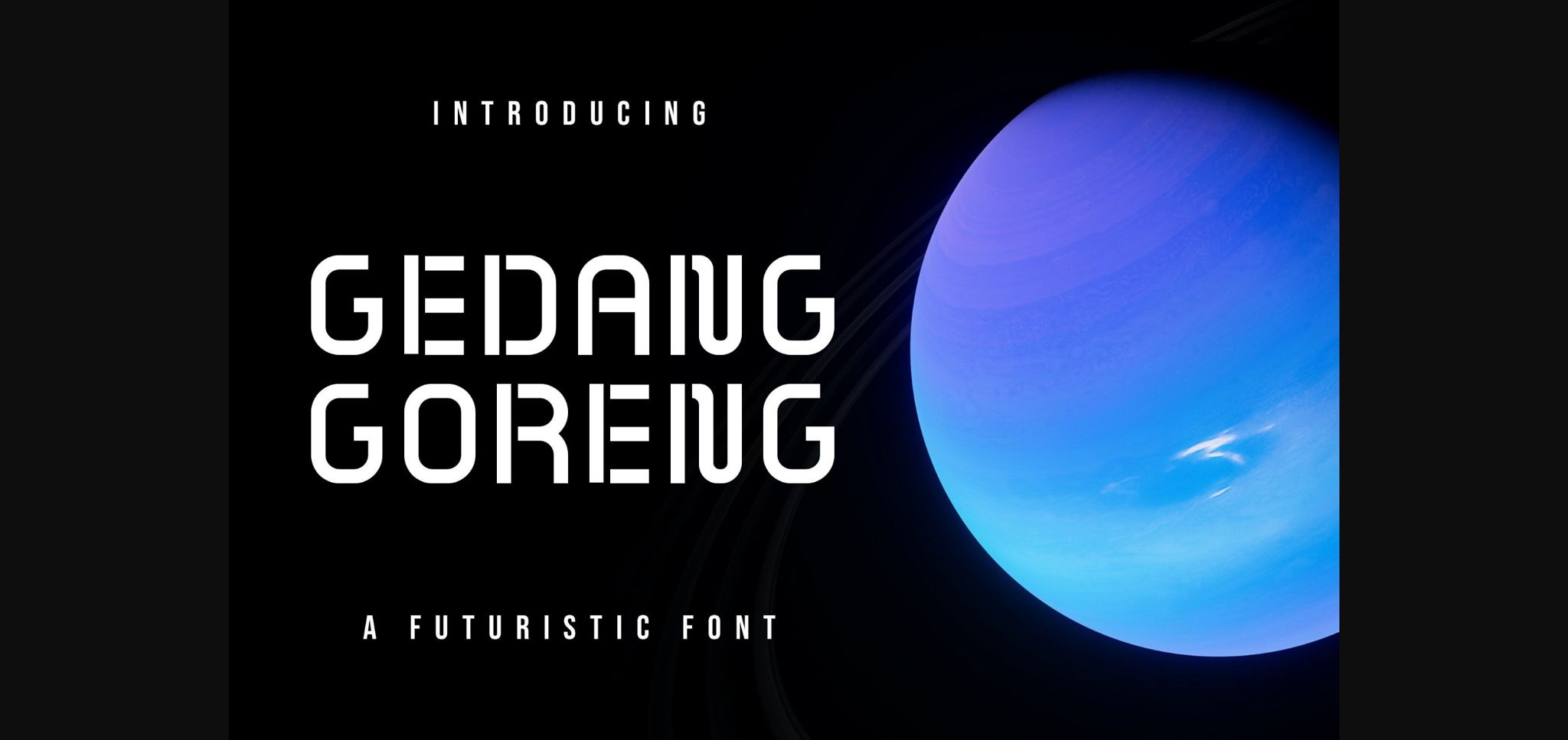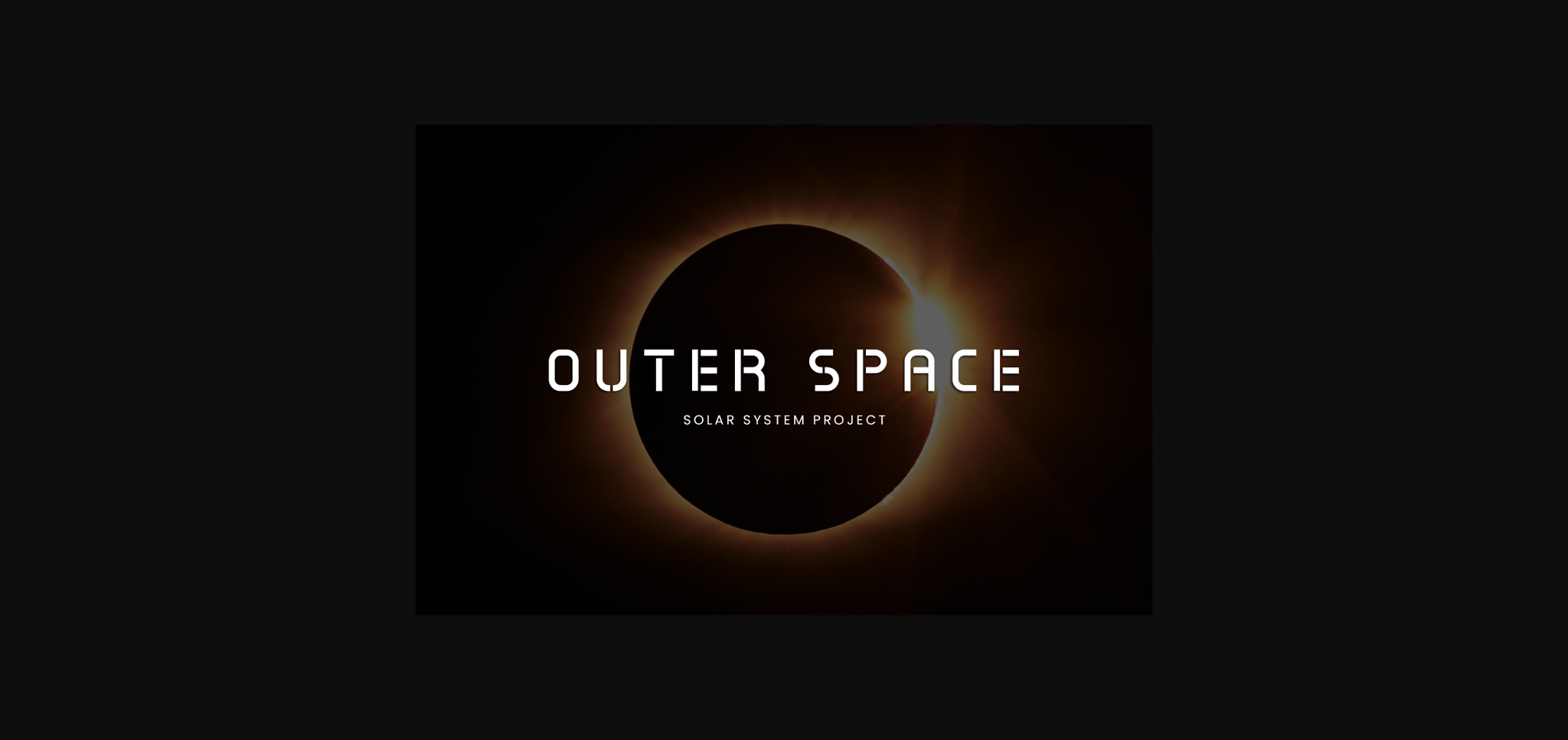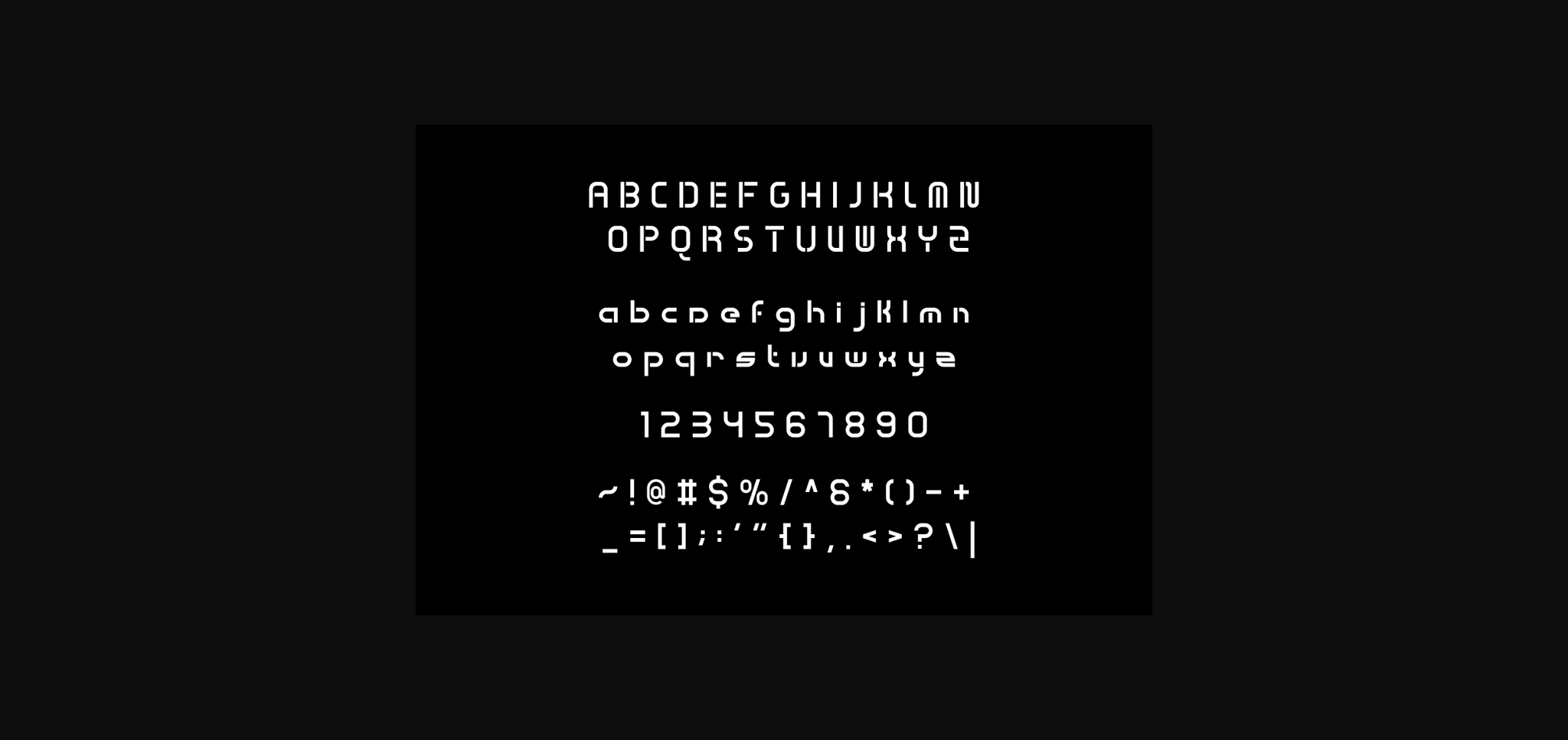
Gedang Goreng Font
About Gedang Goreng Font
Gedang Goreng is a cool, futuristic sans serif font. Its innovative style makes it suitable for all your projects that require a sci-fi touch.